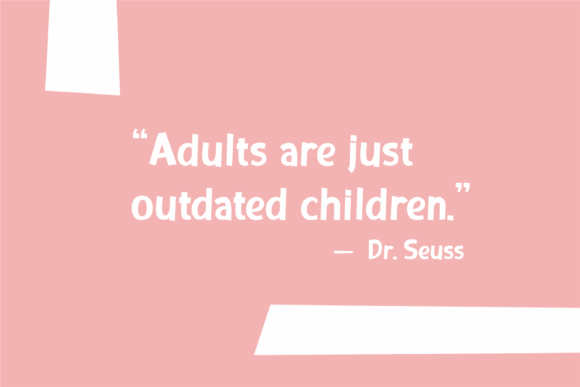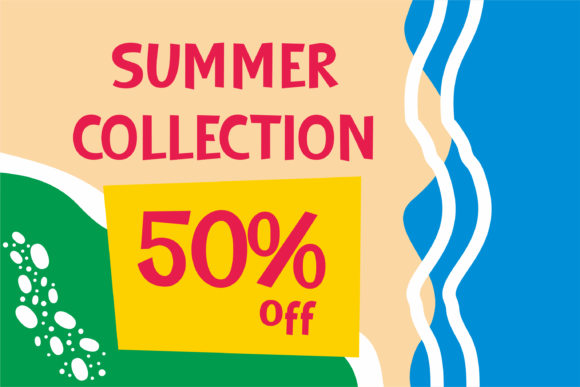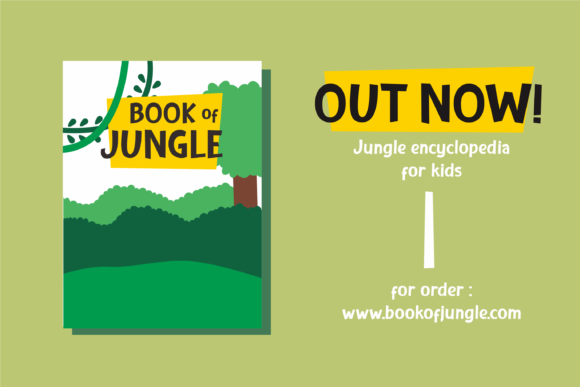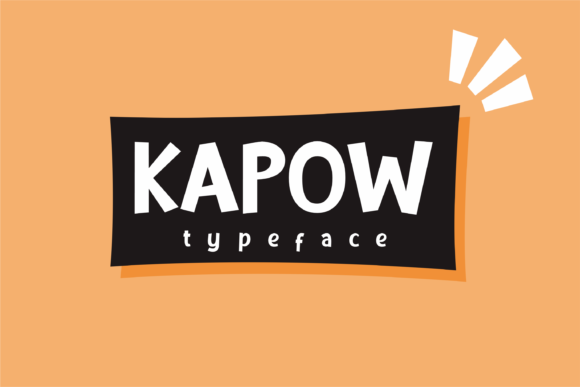
Introduction to Kapow Font
Kapow is an adorable quirky display font.
It will add an incredibly joyful touch to your designs Fall in love with its playful style and use it to create beautiful stationary art, eye-catching social media posts, and much more.
Kapow Font offers exceptional quality and versatility, making it a valuable addition to your design toolkit. Whether you’re creating for personal projects or commercial use, Kapow Font delivers professional results.